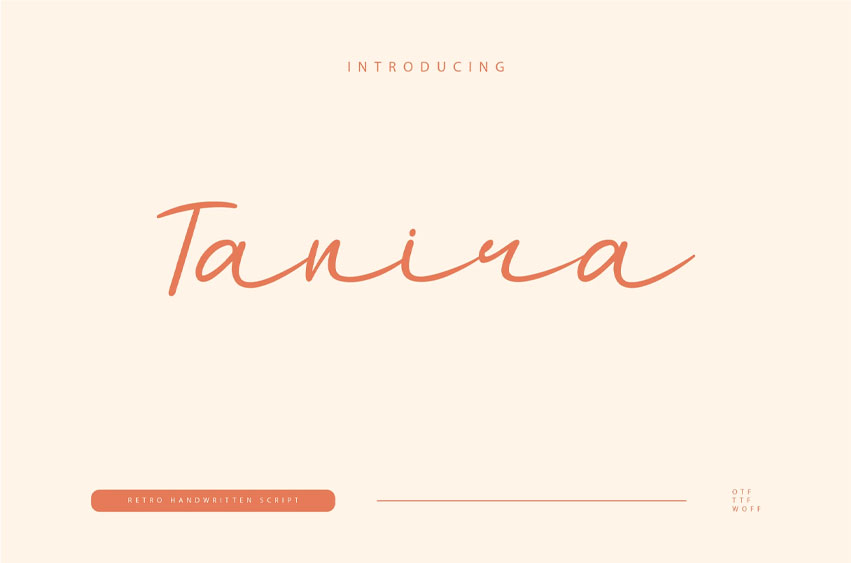
Tanira Font is a graceful script font that embodies elegance and charm. With its fluid, flowing curves and delicate strokes, Tanira offers a sophisticated and artistic feel.
The font’s smooth connections and organic design make it ideal for projects that require a touch of refinement, such as luxury branding, wedding invitations, and high-end creative designs.